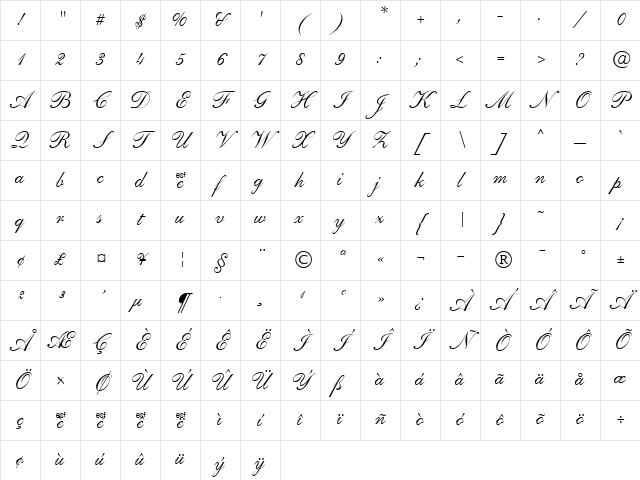
Saffron Regular
Design Context for Saffron
Saffron is a composed and adaptable typeface that performs quietly and consistently across a wide range of design contexts.
Pro Tip: Use Saffron in both headline and body roles to test its range before committing to a single application.